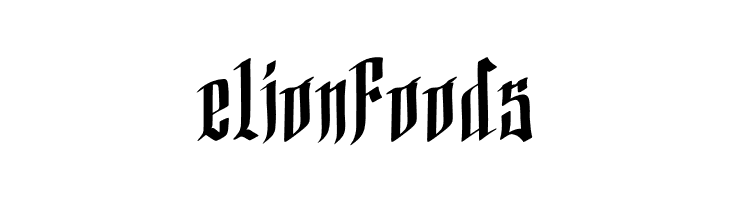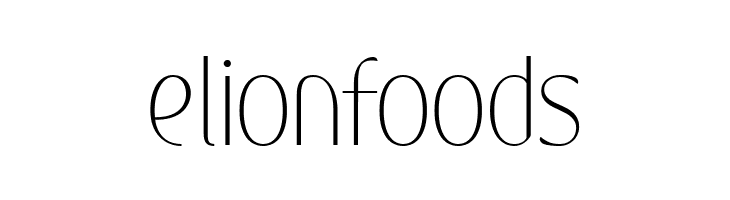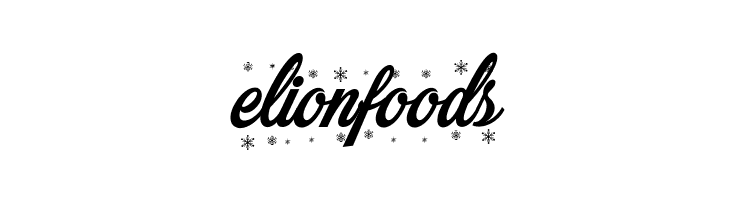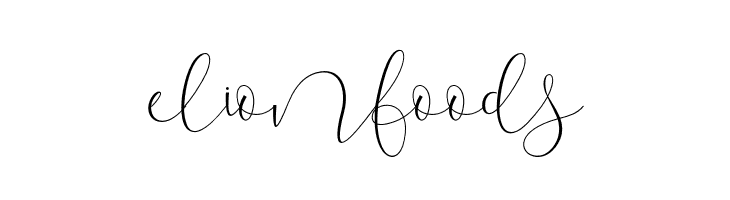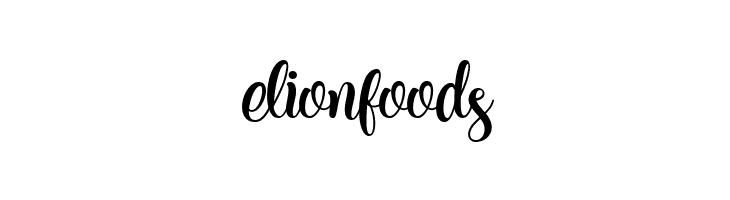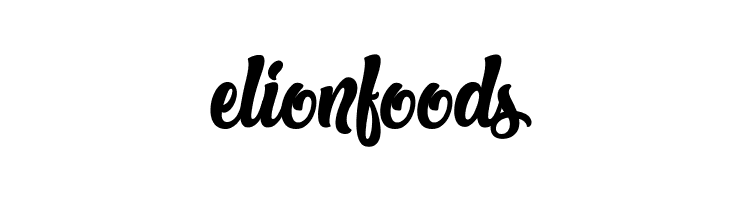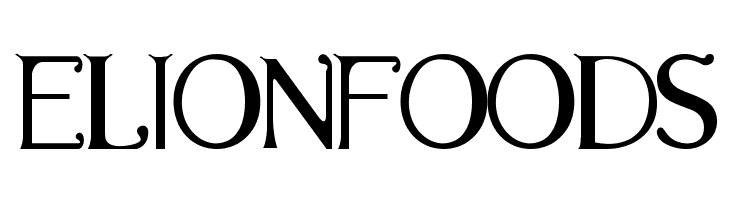
A classic Blackletter font with intricate, ornate letterforms and a Gothic aesthetic.
A sleek, modern font with thin, elongated characters and smooth curves.
A modern, sleek sans-serif font with elongated, slightly curved characters.
A festive script font with snowflake accents and holiday-themed symbols.
A bold, textured, and decorative font with a hand-drawn, three-dimensional appearance.
An elegant script font with flowing, intricate loops and flourishes.
An elegant script font with flowing, cursive letters and high contrast.
A playful and elegant script font with fluid, cursive strokes.
A bold, expressive script font with flowing curves and dynamic style.
An elegant serif font with decorative elements and balanced strokes.